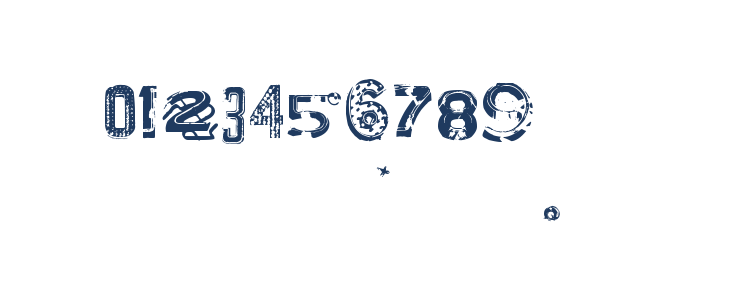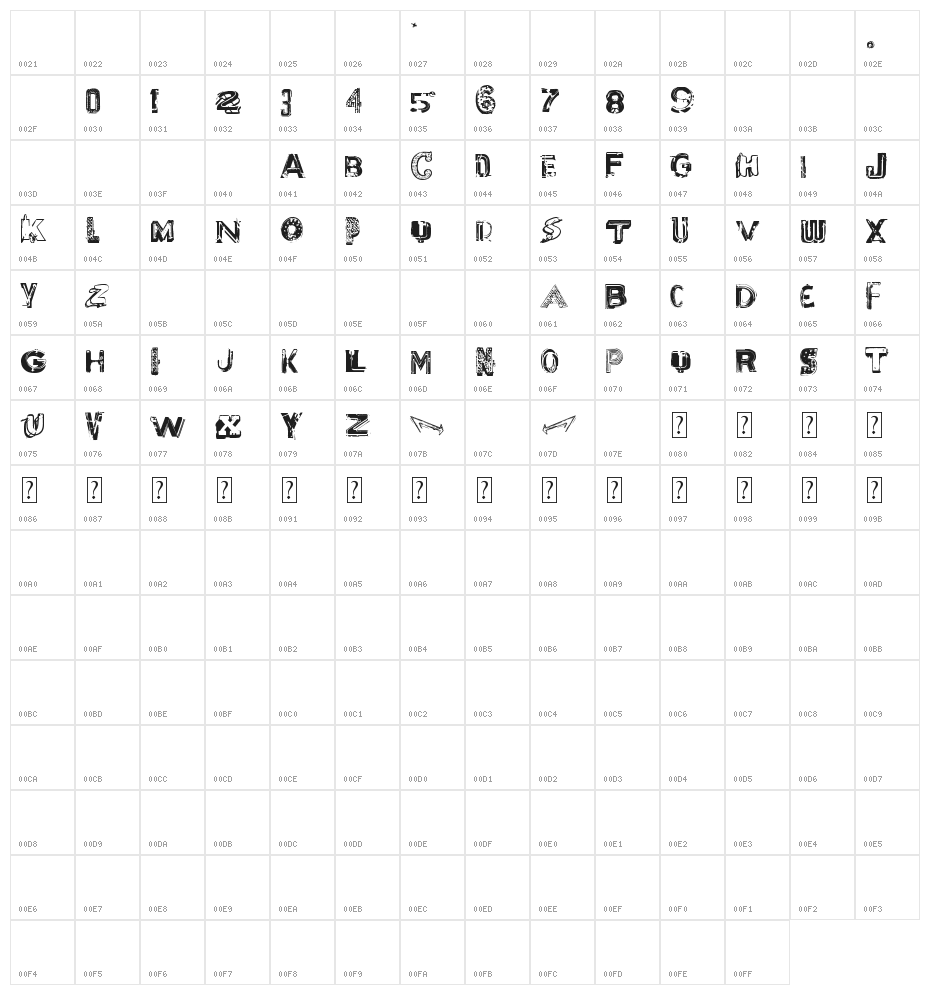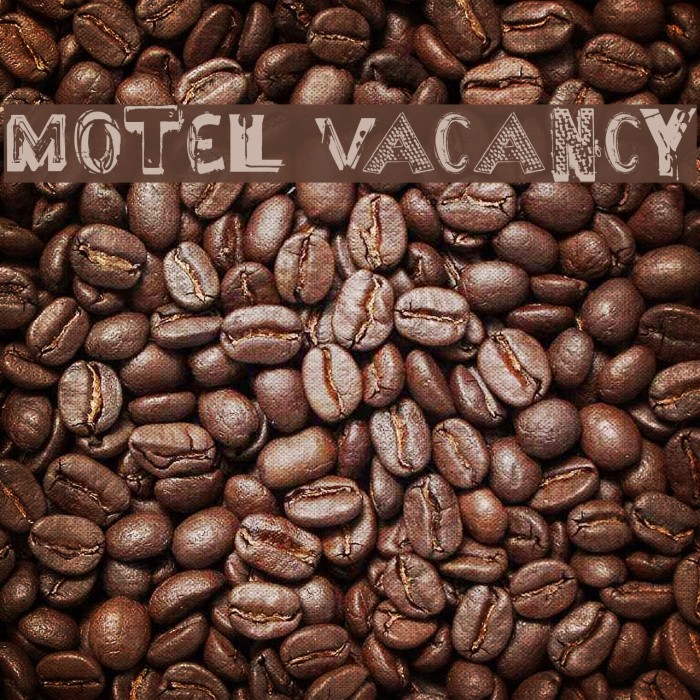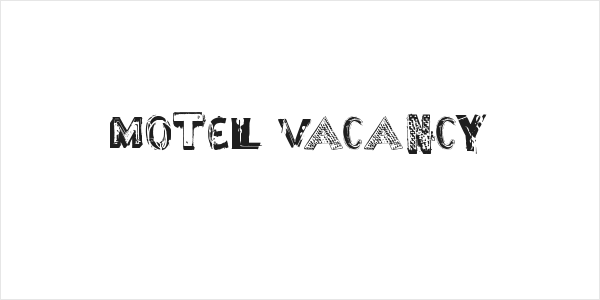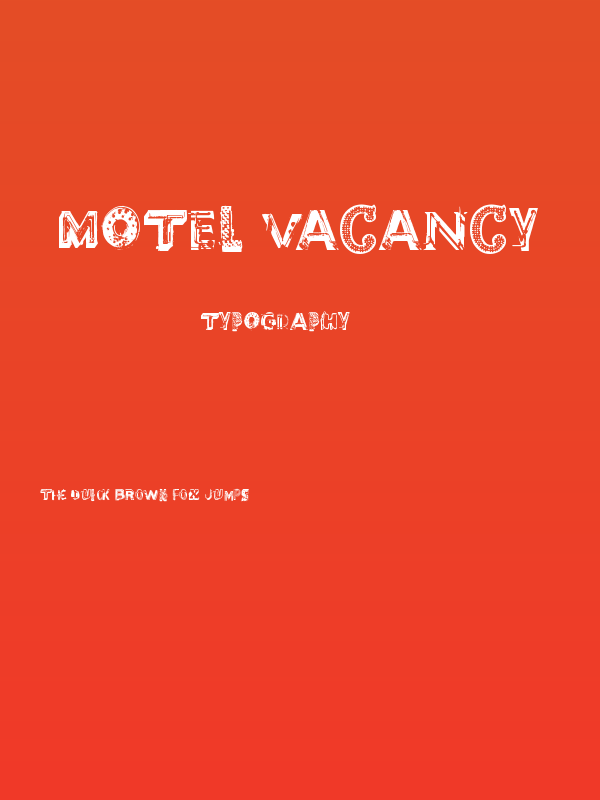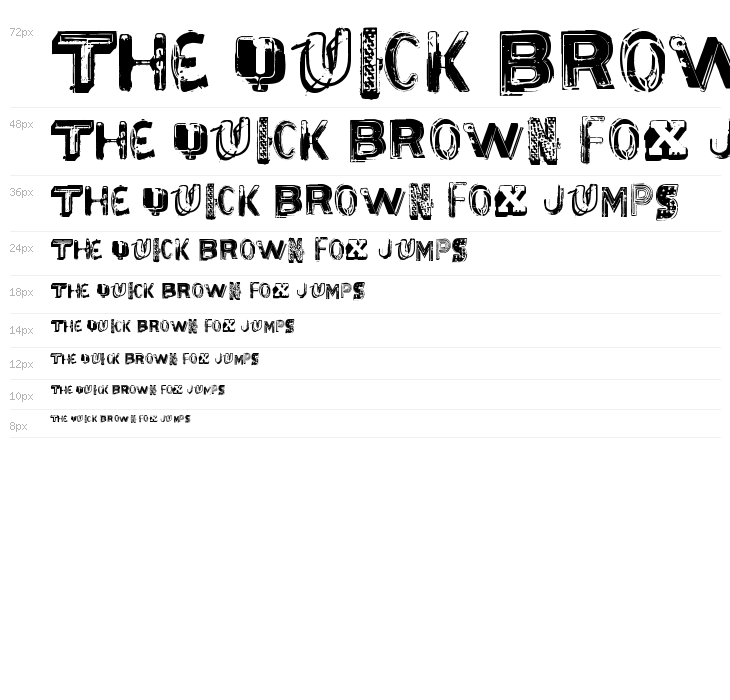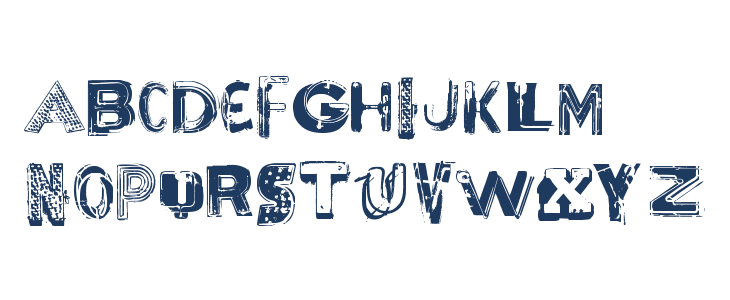
Motel Vacancy Font
Motel Vacancy Description
This font features a distressed, grunge style with a bold and impactful appearance. Each character is uniquely textured, giving it a worn, vintage look reminiscent of old motel signs or retro advertisements. The letters are uppercase and have a strong presence, making them ideal for attention-grabbing headlines or display purposes. The numbers and special characters follow the same distressed aesthetic, ensuring a cohesive look across all elements. The font's irregular edges and varied textures add to its charm, making it perfect for projects that require a touch of nostalgia or a gritty, urban feel.
| Overall Style | Vintage, Grunge |
| Proposed Projects | Ideal for vintage-themed posters, retro advertisements, album covers, or any project needing a bold, nostalgic touch. |